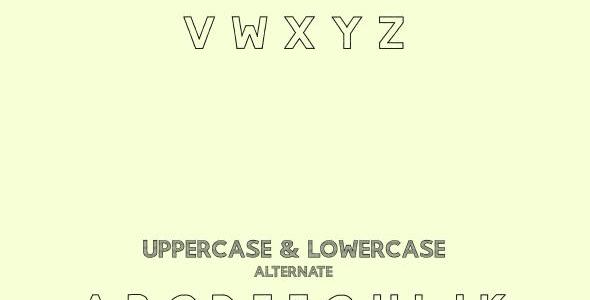
Gorden | A Hand Style Font
Gorden | A Hand Style Font – Sans Serif
Gorden | A Hand Style Font – Sans Serif – 1
Gorden | A Hand Style Font – Sans Serif – 2
Gorden | A Hand Style Font – Sans Serif – 3
Gorden | A Hand Style Font – Sans Serif – 4
Gorden | A Hand Style Font – Sans Serif – 5
Gorden | A Hand Style Font – Sans Serif – 6
Gorden | A Hand Style Font – Sans Serif – 7
Gorden | A Hand Style Font – Sans Serif – 8
Gorden | A Hand Style Font
Introducing Gorden | A Hand Style Font – A handwritting and awesome character! With 4 different style, it’s perfect for logos, name card, magazine layouts, invitations, headers, or even large-scale artwork.